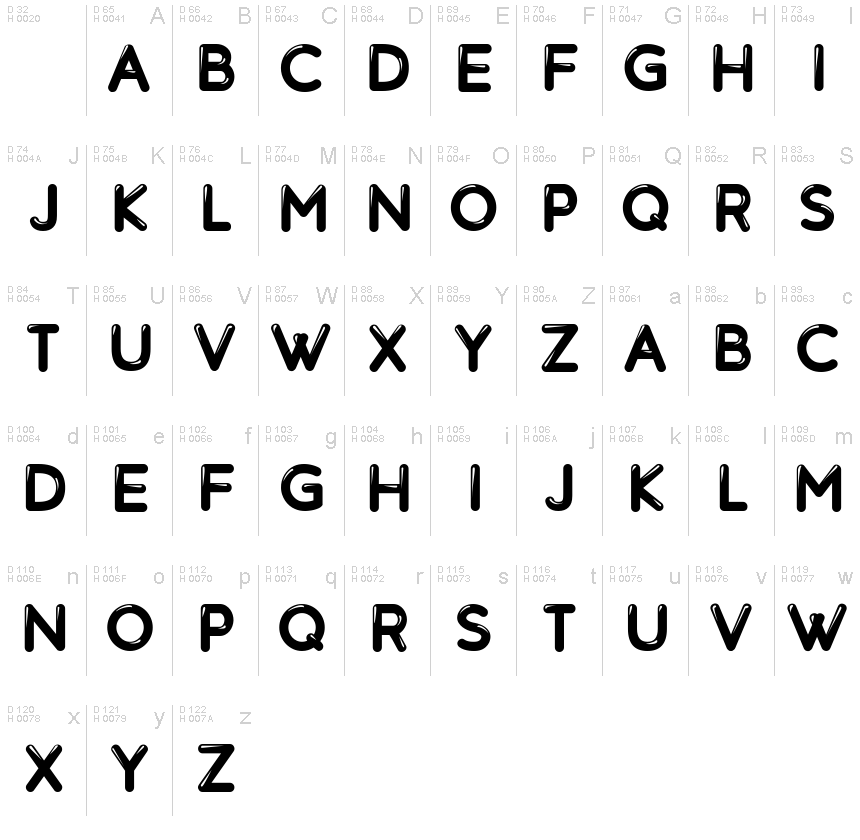
Knowhow Regular
Knowhow is a bold, attention-grabbing font that commands presence. Designed by Vladimir Nikolic, this display typeface exudes confidence and personality. The chunky, exaggerated letterforms create a striking visual impact, making it an ideal choice for headlines, posters, and other high-impact design applications.
The font's weight and width are distinctly emphasized, giving it a strong, almost monumental aesthetic. This bold, expressive style lends itself well to branding, packaging, and logo design, where a font needs to make a powerful statement and leave a lasting impression.
Knowhow's unique character and versatility make it a compelling option for a wide range of creative projects, from editorial layouts to event promotions. Its captivating, modern appeal can elevate any design, infusing it with a sense of dynamism and visual intrigue.